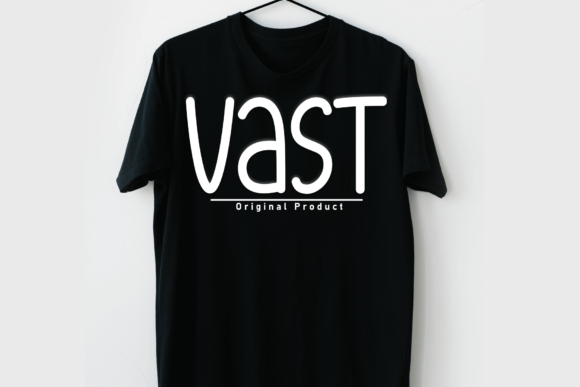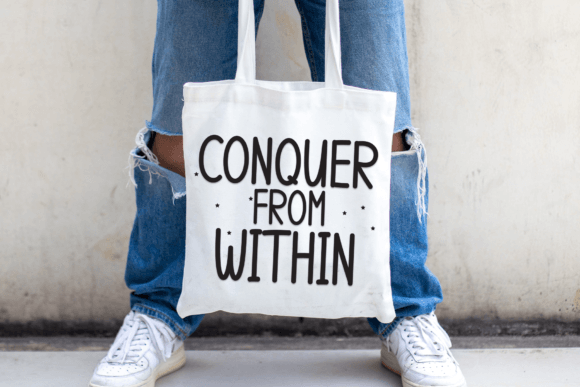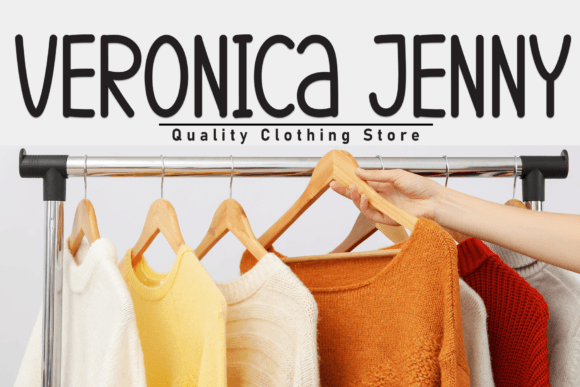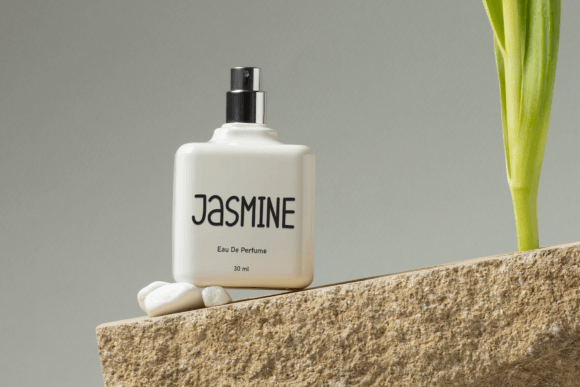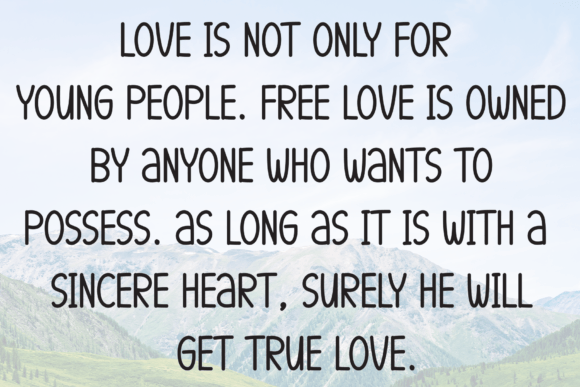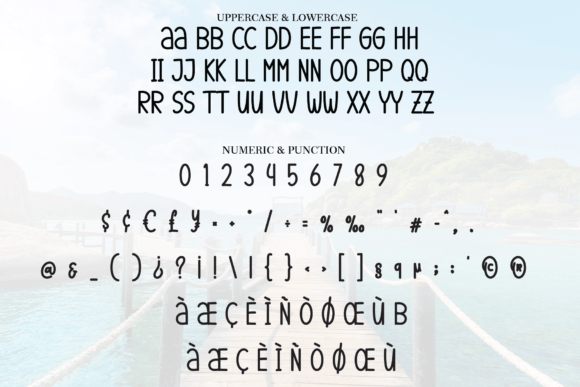
Introducing Clearly Font: The Sweet and Friendly Handwritten Display Font
Are you looking for a font that can add a touch of warmth and personality to your designs? Look no further than Clearly Font, a sweet and friendly handwritten display font that’s perfect for creating eye-catching and engaging content. In this article, we’ll take a closer look at Clearly Font, its features, and how you can use it to elevate your designs.
What is Clearly Font?
Clearly Font is a beautiful handwritten display font that’s designed to bring a touch of fun and playfulness to your designs. With its sweet and friendly style, this font is ideal for writing wedding invitations, cards, or any other design that might need a fun touch. Whether you’re a designer, crafter, or DIY enthusiast, Clearly Font is a versatile and easy-to-use font that can help you create stunning content.
Key Features of Clearly Font
- Cute and Fun: Clearly Font has a playful and charming style that’s perfect for creating designs that need a touch of whimsy.
- Handwritten Display Font: This font has a beautiful handwritten feel that’s perfect for creating eye-catching headlines, titles, and captions.
- Versatile: Clearly Font can be used for a wide range of design projects, from wedding invitations and cards to posters, flyers, and more.
Uses for Clearly Font
Clearly Font is a versatile font that can be used for a wide range of design projects. Here are some ideas to get you started:
- Wedding Invitations: Use Clearly Font to create beautiful and unique wedding invitations that set the tone for your special day.
- Cards and Stationery: Add a touch of personality to your cards and stationery with Clearly Font’s playful and charming style.
- Posters and Flyers: Use Clearly Font to create eye-catching posters and flyers that grab attention and communicate your message.
- Social Media Graphics: Clearly Font is perfect for creating social media graphics that need a touch of fun and personality.
Tips for Using Clearly Font
Here are some tips for using Clearly Font to get the best results:
- Use it sparingly: Clearly Font is a display font, so it’s best to use it sparingly to create emphasis and add visual interest.
- Pair it with other fonts: Clearly Font pairs well with other fonts, so experiment with different combinations to find the perfect look for your design.
- Experiment with colors: Clearly Font looks great in a variety of colors, so don’t be afraid to experiment and find the perfect color scheme for your design.
Clearly Font is a sweet and friendly handwritten display font that’s perfect for adding a touch of fun and personality to your designs. With its versatile style and easy-to-use format, Clearly Font is a great choice for designers, crafters, and DIY enthusiasts. Whether you’re creating wedding invitations, cards, or social media graphics, Clearly Font is a great font to have in your toolkit.